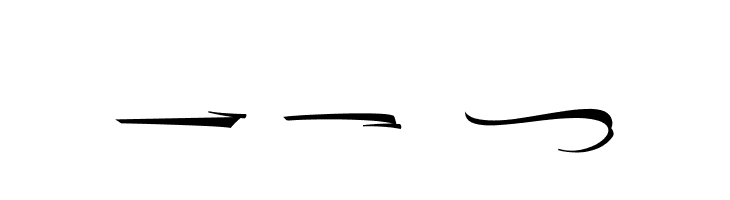
An elegant font with flowing swashes and intricate flourishes, ideal for decorative use.
A bold, cursive font with dramatic flourishes and high contrast strokes.
An ornate and decorative font with intricate swashes and flourishes.